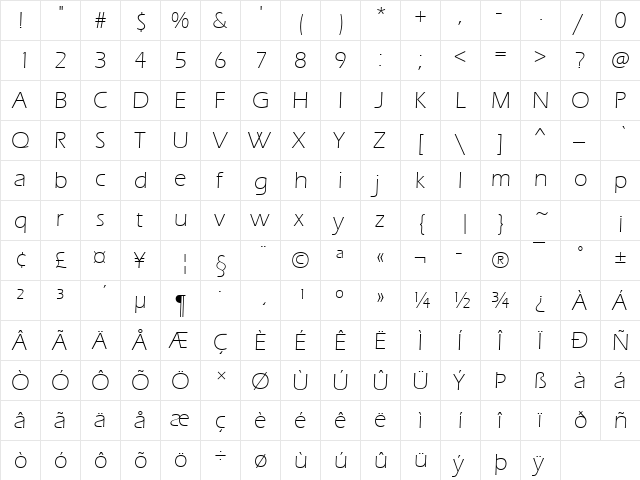
Eras Light ITC Regular Font Preview
Eras Light ITC Regular
Eras Light ITC Regular Font Details
Design Context for Eras Light ITC Typeface
Eras Light ITC offers clean, dependable letterforms without strong stylistic allegiance, making it a practical choice for designers who need flexibility. Its slender proportions lend an understated elegance to any composition.
Pro Tip: Use Eras Light ITC in both headline and body roles to test its range before committing to a single application.